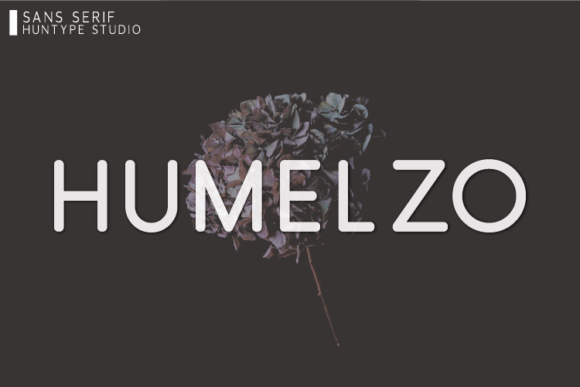
Discover Your Perfect Match: Introducing Humelzo Font
Have you ever stared at a blank canvas, trying to bring your creative vision to life? The blank page can be intimidating, but with the right tools, anything is possible. For designers, finding the perfect font can make all the difference between a mediocre design and a masterpiece.
Enter Humelzo Font, a simple and neat lettered sans serif font that’s perfect for logos, branding, and web headings. Its clean lines and modern aesthetic make it an excellent addition to any project. Whether you’re working on a personal branding project or a commercial campaign, Humelzo Font is a valuable asset that will elevate your designs and leave a lasting impression.
Humelzo Font Key Features
- Font Family: Humelzo Font is a sans-serif font family designed for modern and minimalist designs.
- Unique Characteristics: Humelzo Font features a clean, geometric design with a subtle rounded edge, giving it a friendly and approachable feel.
Humelzo Font Review
As a designer, I’ve had the chance to work with the Humelzo font, and I must say it’s a decent addition to any digital project. ✨ The font’s rounded edges and soft curves make it perfect for designing children’s books, educational materials, and even some marketing materials. The clean lines and minimalism also give it a modern and sophisticated look, which works well for corporate websites and business cards.
- Wide range of weights and styles to choose from, including bold, italic, and bold italic.
- Works well in digital formats, including web and mobile applications.
- Easy to read and understand, making it perfect for body text and headings.
However, I do have some concerns about the font’s limitations. ⚠️ The Humelzo font is not ideal for designing titles or headlines, as it can come across as too simplistic and lacking in impact. Additionally, the font’s rounded edges can make it difficult to read at smaller font sizes, which can be a problem for projects that require a lot of text.
Overall, I think the Humelzo font is a solid choice for designers who need a clean and modern font for their projects. While it may not be the most exciting or attention-grabbing font, it gets the job done and is easy to work with. Just be mindful of its limitations and use it in the right context.
For optimal results, use Humelzo Font in combination with high-quality images and a clear color scheme. Common use cases include:
- Logo design and branding
- Typography and editorial design
- Stylish graphics and invitations
- Professional presentations and reports
Alternatives to Humelzo Font for Designers
Pacifico is a beautiful, elegant script font that is perfect for creating a sense of luxury and sophistication. It is ideal for use in branding, advertising, and packaging designs where a high-end feel is desired.